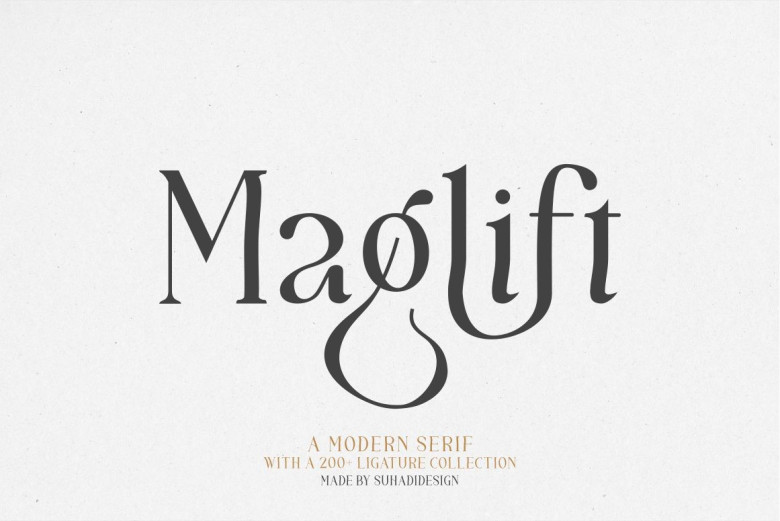
Maglift Font
Maglift is a beautiful and classy serif typeface which has been designed with finesse. Even the lettering of the name is well done and slick with no rough edges or exaggerated curves to be seen. Being suitable for Luxury Branding, Editorial projects, and Luxury Products, Maglift transforms any project to reach a whole new level of Luxury. This font is PUA encoded, which makes it a lot easier to access all the glyphs and the ligatures, in case you wanted to.
Maglift Serif Font